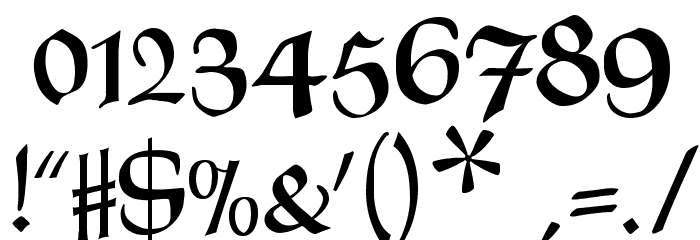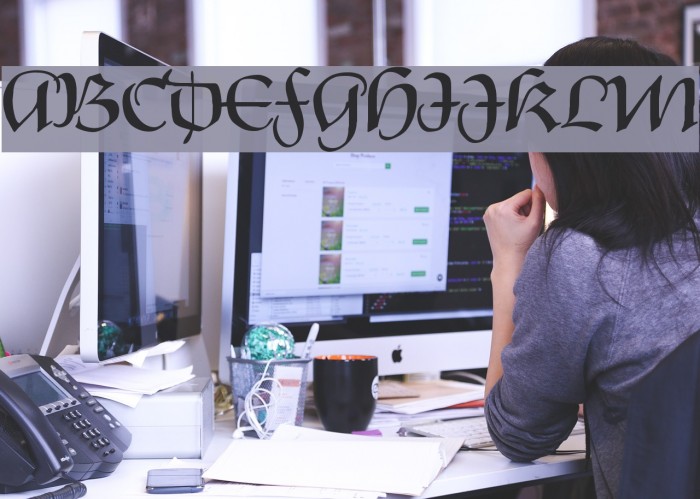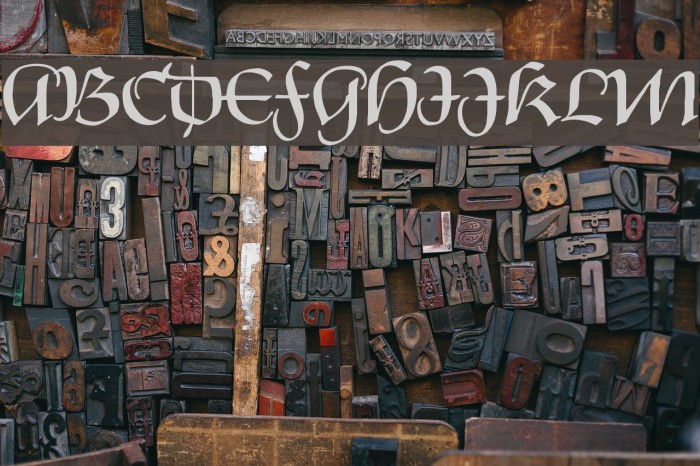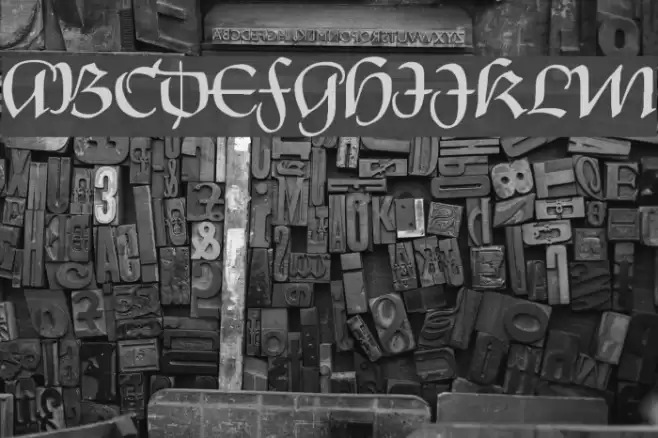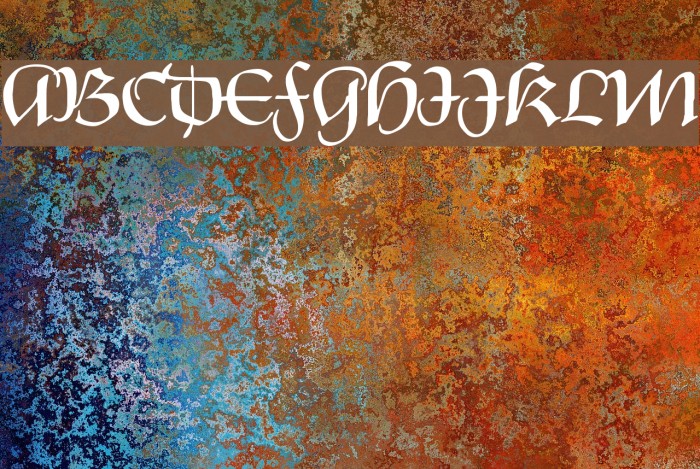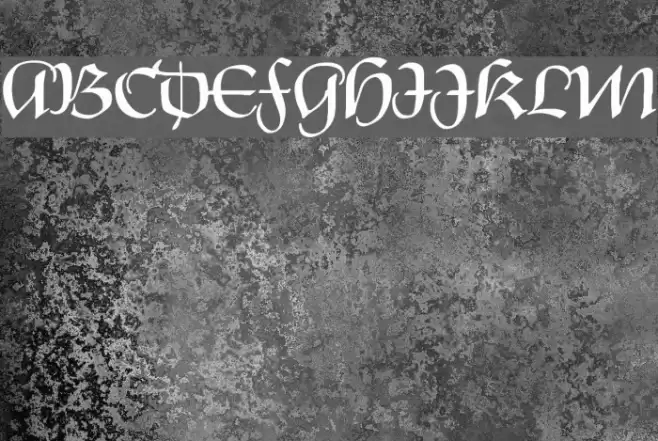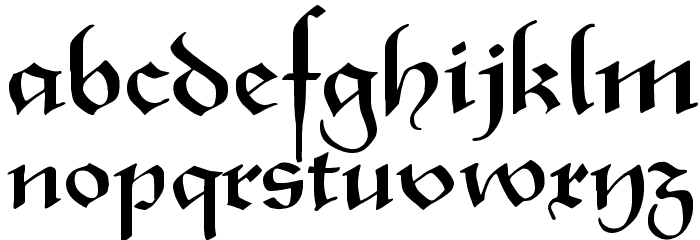
XmasTerpieceRegular Font
XmasTerpieceRegular Description
This font features a distinct and intricate design reminiscent of traditional calligraphy with a modern twist. The uppercase letters exhibit a strong presence with elaborate curves and sharp edges, while the lowercase letters maintain a fluid and elegant form. The numerals are bold and consistent with the overall style, providing a cohesive look. Special characters are designed with the same attention to detail, ensuring they blend seamlessly with the rest of the font. The overall aesthetic is both decorative and sophisticated, making it suitable for projects that require a touch of elegance and tradition.